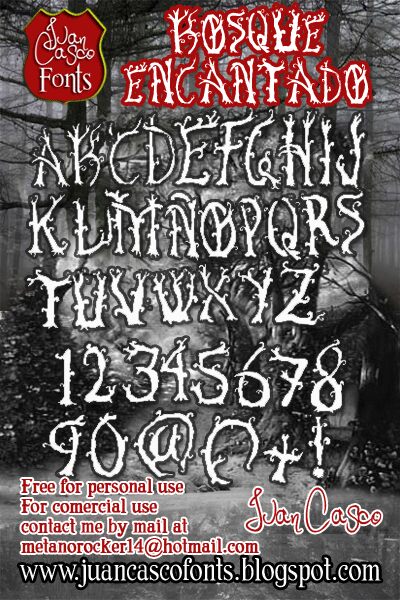
Bosque Encantado
Bosque Encantado by Juan Casco is a free gothic display font built from twisted, branch-like letters. Uneven strokes, thorny offshoots, and curling tips give the forms an overgrown silhouette. The medieval influence reads more like dark folklore than formal blackletter.
Fantasy book covers are its strongest setting because the lettering resembles an enchanted forest. It also suits game titles, theatrical posters, and Halloween merchandise with a storybook edge. In publishing, it can turn chapter openers into illustration.